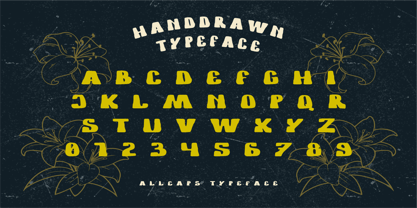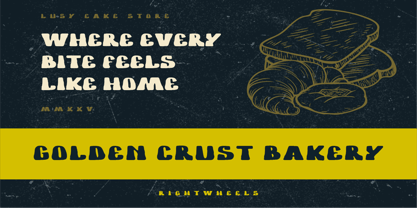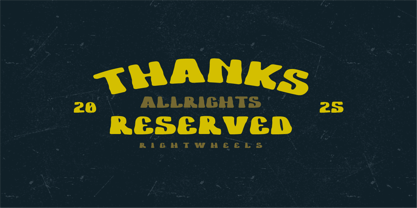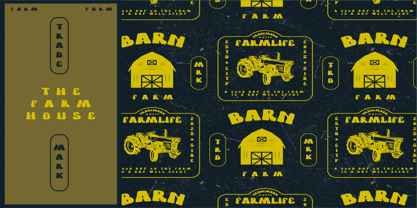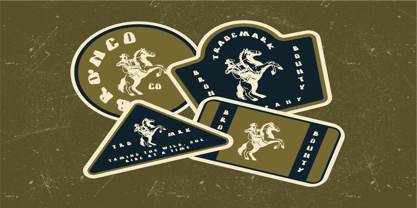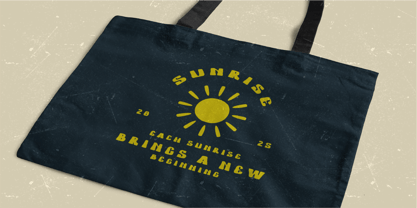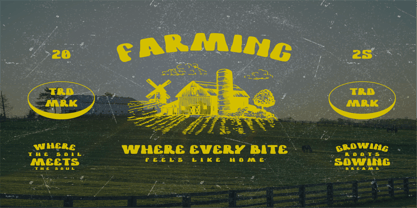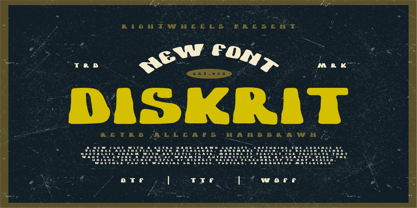
Diskrit
by Rightwheels
Diskrit is a new font with a retro hand-drawn concept, capturing the essence of vintage aesthetics with a personal, handmade touch. Its design blends nostalgic charm with artistic flair, making it perfect for projects that want to evoke a sense of warmth, authenticity, and a creative vibe. The unique, sketched style of Diskrit brings personality to any design, whether you're working on logos, posters, or branding materials.